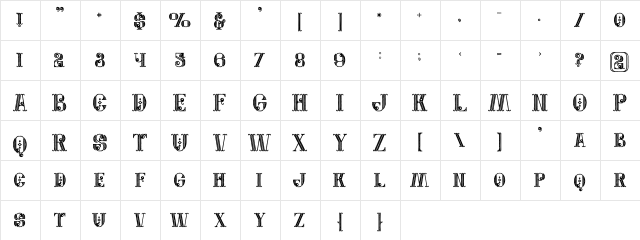
Jewel Bold Grunge Free Font
Jewel Bold Grunge Bold Grunge
Style: Bold Grunge
Foundry: cruzine
Designer: cruzine
Design Context for Jewel Bold Grunge
Jewel Bold Grunge embraces imperfection - its rough, textured character adds raw authenticity to designs that want to feel lived-in and unconventional.
Pro Tip: Use Jewel Bold Grunge at larger sizes where the texture and irregularity of each letterform can be clearly seen - it loses its character at small sizes.